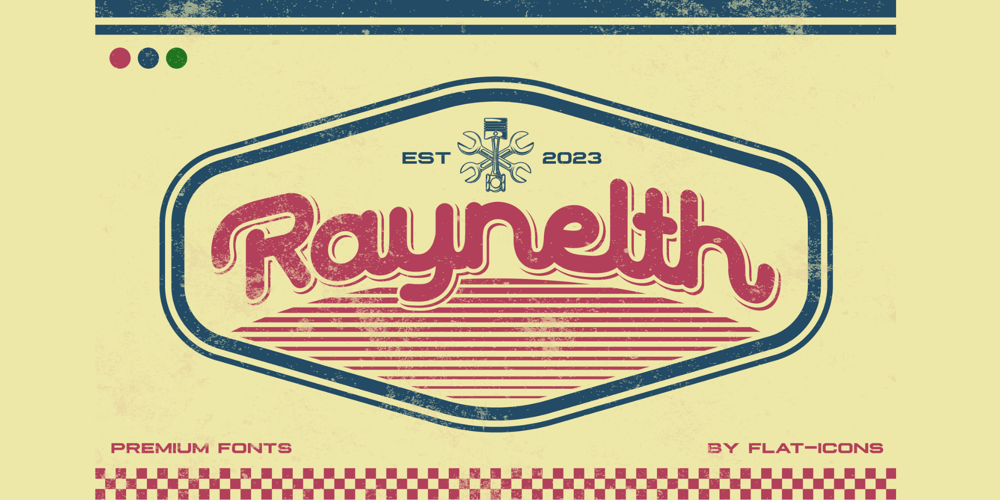
Raynelth
Raynelth font
Raynelth Font Family was designed by Heri Imanudin and published by Krafted. Raynelth contains 1 styles and family package options. Looking to add a touch of extraordinary to your brand image? Whether you’re an innovator or a timeless classic, we’ve got just the thing.Introducing Raynelth – A Logo Display Font.From logo design to digital and print media, Raynelth makes a memorable impression. Give it a try and enjoy all the benefits of a truly captivating font.